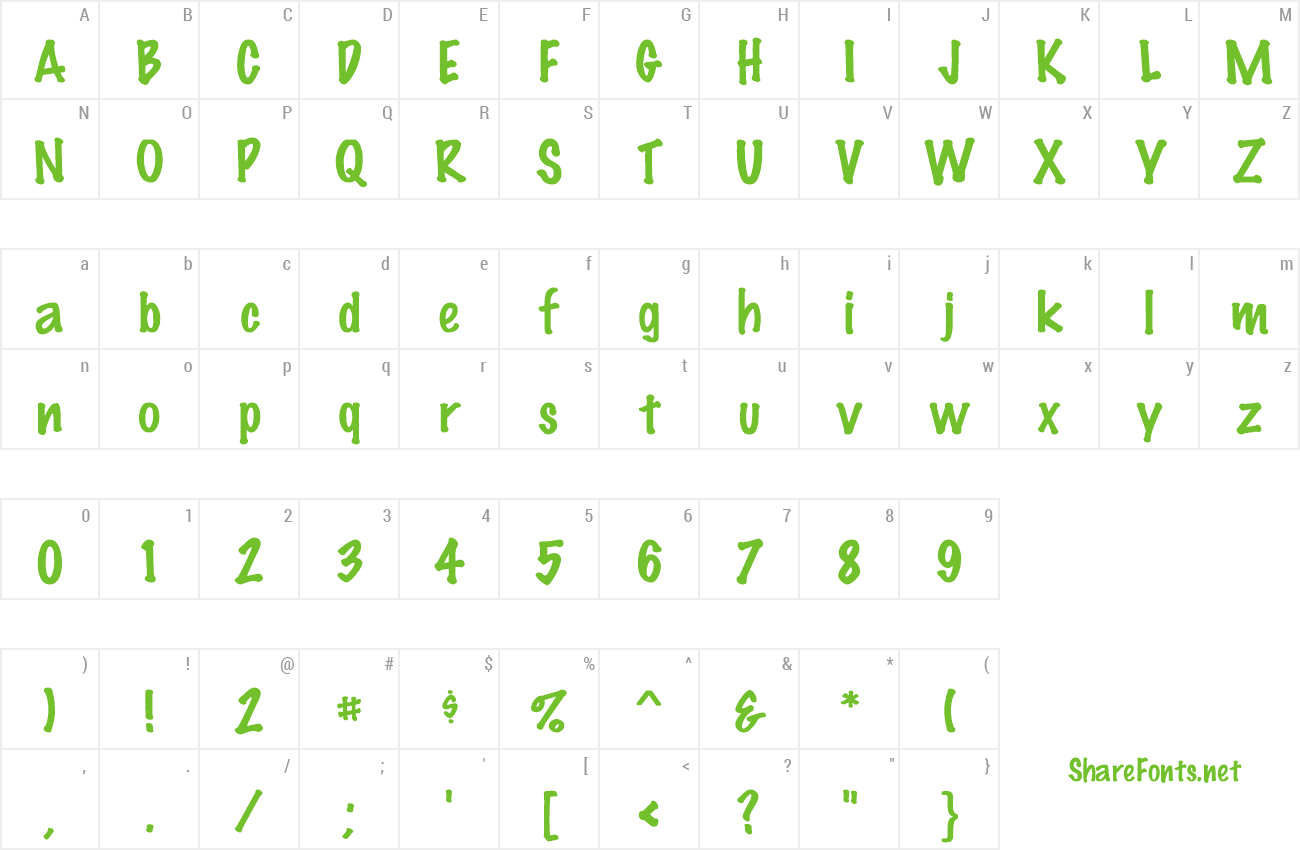
Download Marker Felt Font - Marker felt by copyright [c] typographer mediengestaltung, 2001. The marker felt font has been downloaded 443,776 times. Download and install the marker felt font by dieter steffmann. Marker felt font is a playful and cute script typeface that will be perfect for scrapbooking, diy projects, greeting cards, packaging, posters,.
Download and install the marker felt font by dieter steffmann. The marker felt font has been downloaded 443,776 times. Marker felt by copyright [c] typographer mediengestaltung, 2001. Marker felt font is a playful and cute script typeface that will be perfect for scrapbooking, diy projects, greeting cards, packaging, posters,.
Marker felt font is a playful and cute script typeface that will be perfect for scrapbooking, diy projects, greeting cards, packaging, posters,. Marker felt by copyright [c] typographer mediengestaltung, 2001. The marker felt font has been downloaded 443,776 times. Download and install the marker felt font by dieter steffmann.
Marker felt by copyright [c] typographer mediengestaltung, 2001. Marker felt font is a playful and cute script typeface that will be perfect for scrapbooking, diy projects, greeting cards, packaging, posters,. The marker felt font has been downloaded 443,776 times. Download and install the marker felt font by dieter steffmann.
The marker felt font has been downloaded 443,776 times. Marker felt by copyright [c] typographer mediengestaltung, 2001. Download and install the marker felt font by dieter steffmann. Marker felt font is a playful and cute script typeface that will be perfect for scrapbooking, diy projects, greeting cards, packaging, posters,.
Marker felt by copyright [c] typographer mediengestaltung, 2001. Download and install the marker felt font by dieter steffmann. The marker felt font has been downloaded 443,776 times. Marker felt font is a playful and cute script typeface that will be perfect for scrapbooking, diy projects, greeting cards, packaging, posters,.
Marker felt font is a playful and cute script typeface that will be perfect for scrapbooking, diy projects, greeting cards, packaging, posters,. The marker felt font has been downloaded 443,776 times. Marker felt by copyright [c] typographer mediengestaltung, 2001. Download and install the marker felt font by dieter steffmann.
Marker felt by copyright [c] typographer mediengestaltung, 2001. Download and install the marker felt font by dieter steffmann. The marker felt font has been downloaded 443,776 times. Marker felt font is a playful and cute script typeface that will be perfect for scrapbooking, diy projects, greeting cards, packaging, posters,.
Marker felt font is a playful and cute script typeface that will be perfect for scrapbooking, diy projects, greeting cards, packaging, posters,. Download and install the marker felt font by dieter steffmann. The marker felt font has been downloaded 443,776 times. Marker felt by copyright [c] typographer mediengestaltung, 2001.
Download and install the marker felt font by dieter steffmann. Marker felt font is a playful and cute script typeface that will be perfect for scrapbooking, diy projects, greeting cards, packaging, posters,. The marker felt font has been downloaded 443,776 times. Marker felt by copyright [c] typographer mediengestaltung, 2001.
Download and install the marker felt font by dieter steffmann. Marker felt by copyright [c] typographer mediengestaltung, 2001. Marker felt font is a playful and cute script typeface that will be perfect for scrapbooking, diy projects, greeting cards, packaging, posters,. The marker felt font has been downloaded 443,776 times.
The marker felt font has been downloaded 443,776 times. Download and install the marker felt font by dieter steffmann. Marker felt font is a playful and cute script typeface that will be perfect for scrapbooking, diy projects, greeting cards, packaging, posters,. Marker felt by copyright [c] typographer mediengestaltung, 2001.
Marker felt by copyright [c] typographer mediengestaltung, 2001. The marker felt font has been downloaded 443,776 times. Marker felt font is a playful and cute script typeface that will be perfect for scrapbooking, diy projects, greeting cards, packaging, posters,. Download and install the marker felt font by dieter steffmann.
Marker felt font is a playful and cute script typeface that will be perfect for scrapbooking, diy projects, greeting cards, packaging, posters,. The marker felt font has been downloaded 443,776 times. Marker felt by copyright [c] typographer mediengestaltung, 2001.